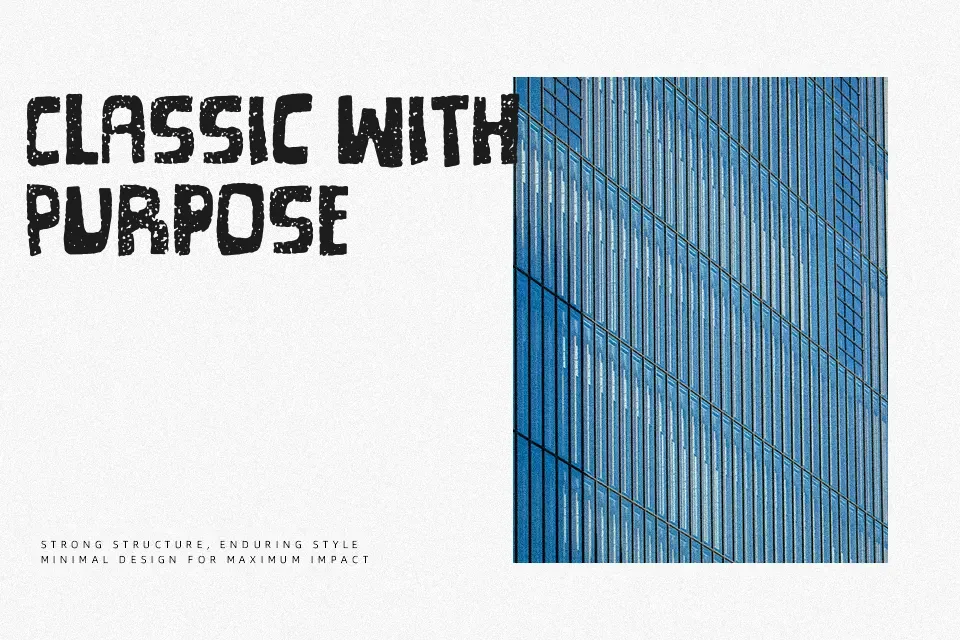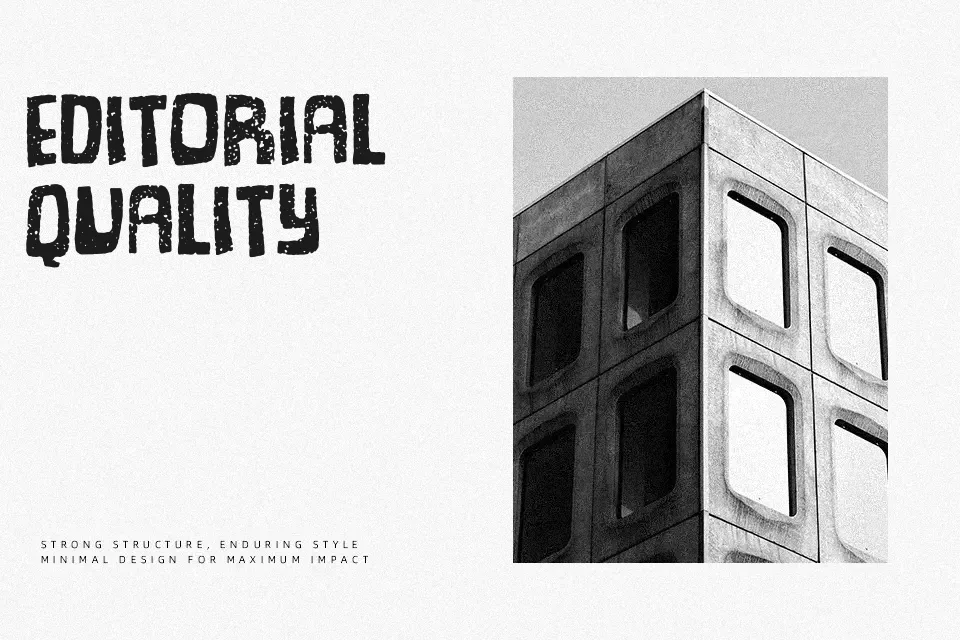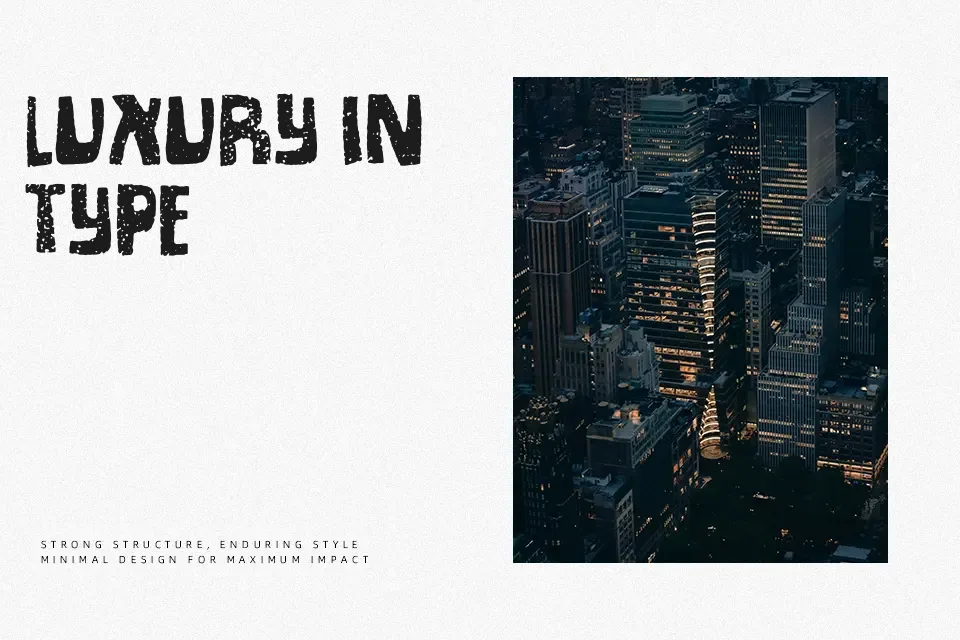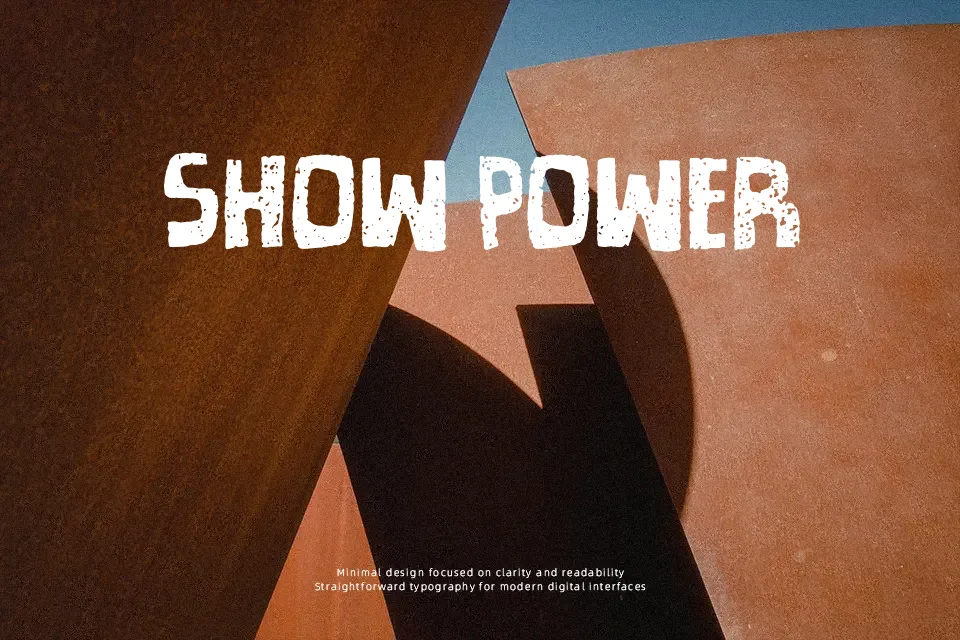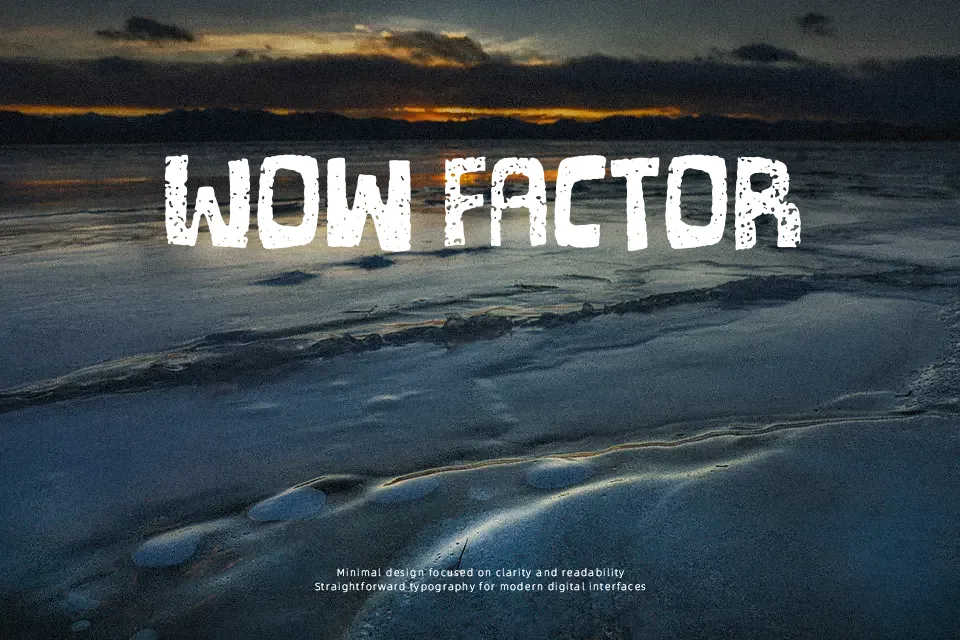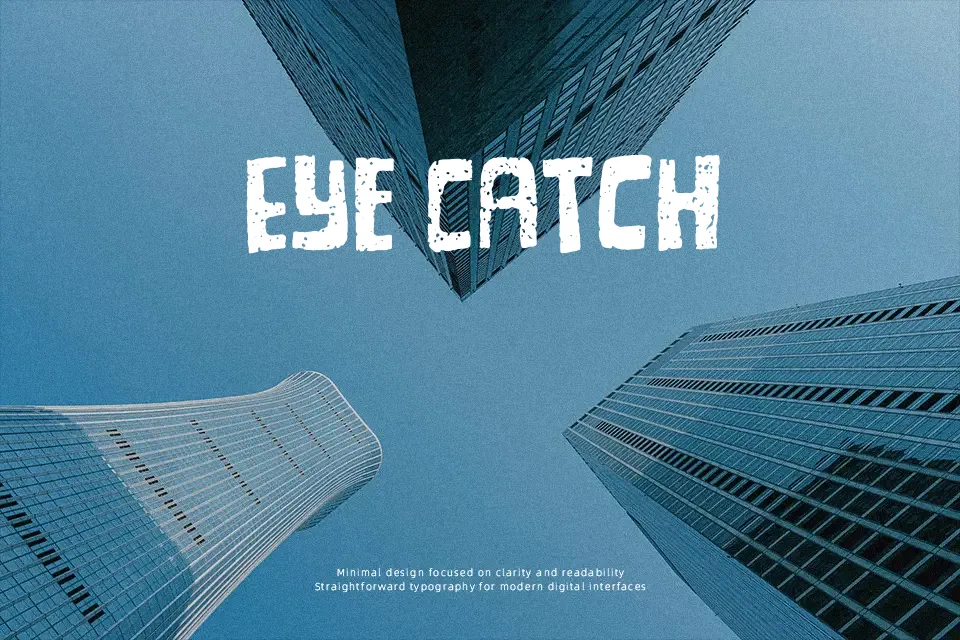
Spiced Cheese Font
Spiced Cheese Font uses thick, uneven cartoon letterforms with rounded curves, jagged edges, and an intentionally rough outline-like texture. The characters have broad proportions and lively variation, giving short words a handmade, energetic rhythm rather than a uniform typographic tone. Spacing appears open enough to keep large display text distinct, while the irregular shapes make individual letters more expressive than precise. It works well for bold titles and graphic-led layouts where personality matters. The heavy, decorative forms remain most readable at larger sizes; small captions and longer passages can become visually tiring.
children’s activity posters,playful product packaging,cartoon-style headlines,casual restaurant signage
long paragraph text,small interface labels,corporate reports,dense editorial layouts